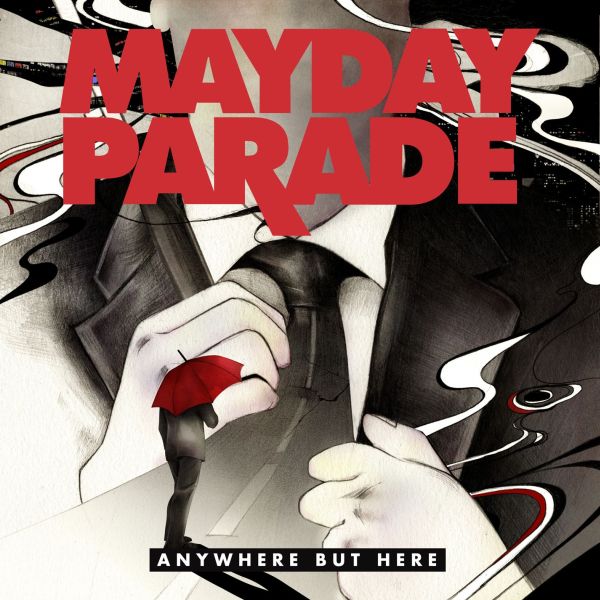
Mayday Parade Font
BandMayday Parade is a rock band from Tallahassee, Florida, formed in 2005. The band has released three full-length albums and two EPs. "A Lesson in Romantics" was Mayday Parade's first full-length album released on Fearless Records in July 2007 and sold over 200,000 copies.
Their logotype, which can be found on nearly all of their releases, has the band name in all capital letters in a bold sans serif typeface. The font used is most likely Futura Extra Bold but with the “R” extended.